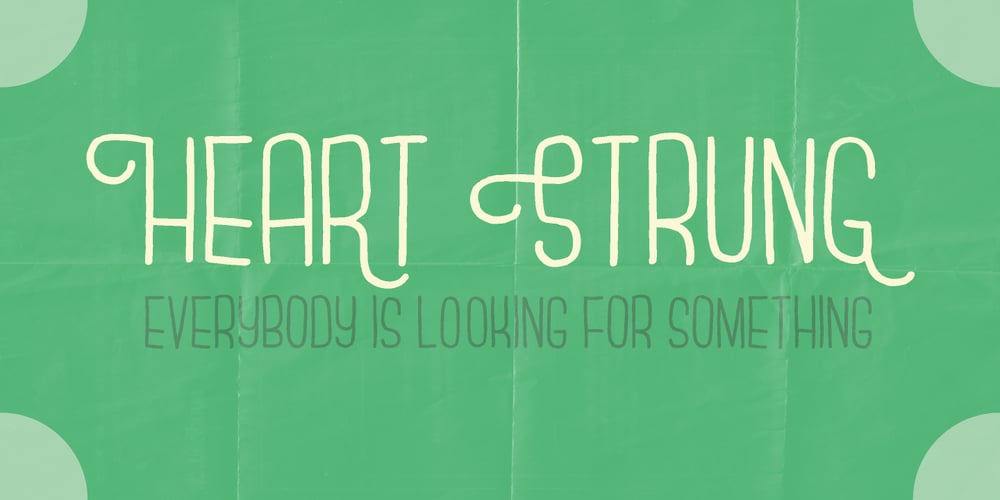
Heart Strung Font Family was designed by Jakob Fischer and published by PizzaDude.dk. Heart Strung contains 1 styles and family package options. Simple, yet thrilling! Heart Strung is my handmade font! Useful for a wide range of things – such as invitations, greeting cards, headlines, notes and quotes … and a lot of other things! Comes with swashes for uppercase and ligatures for double lettering – and some lovely swashy alternates! ๐